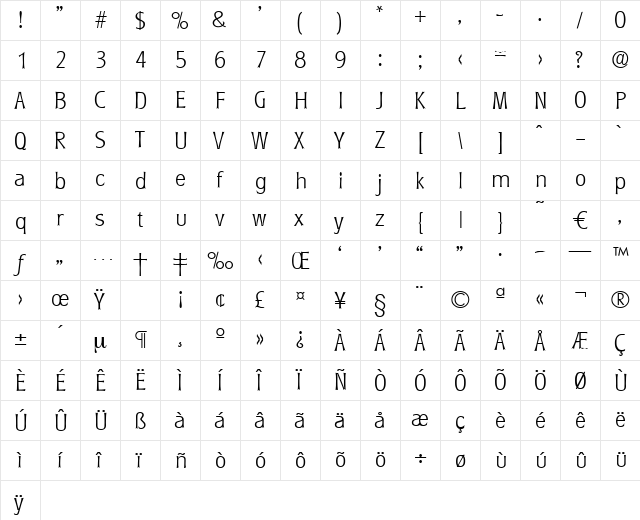
Roundest-Xlight Regular
Design Context for Roundest-Xlight Typeface
Roundest-Xlight softens its letterforms with rounded terminals, giving it an approachable, friendly quality that works well in consumer-facing and digital contexts. The delicate stroke weight brings airiness and refinement to layouts.
A natural fit for tech startups, health and wellness brands, children's products, and friendly consumer apps.
Font Pairing: Pairs well with a rounded or humanist sans for body copy, maintaining the friendly tone without relying on Roundest-Xlight to carry extended reading.
Pro Tip: Pair Roundest-Xlight with a geometric sans for a balanced system — the rounded softness works as a warm counterpoint to harder-edged companions.